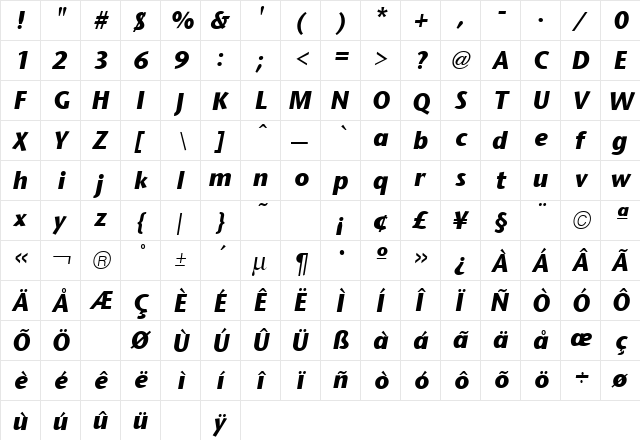
Stone Sans Bold Italic
Design Context for Stone Sans Typeface
Stone Sans offers clean, dependable letterforms without strong stylistic allegiance, making it a practical choice for designers who need flexibility. The slanted form adds forward momentum and visual energy. Its bold stroke weight gives it real presence on the page.
Pro Tip: Try Stone Sans for annotation and caption copy alongside an upright companion — the contrast in angle creates a dynamic but ordered typographic system.